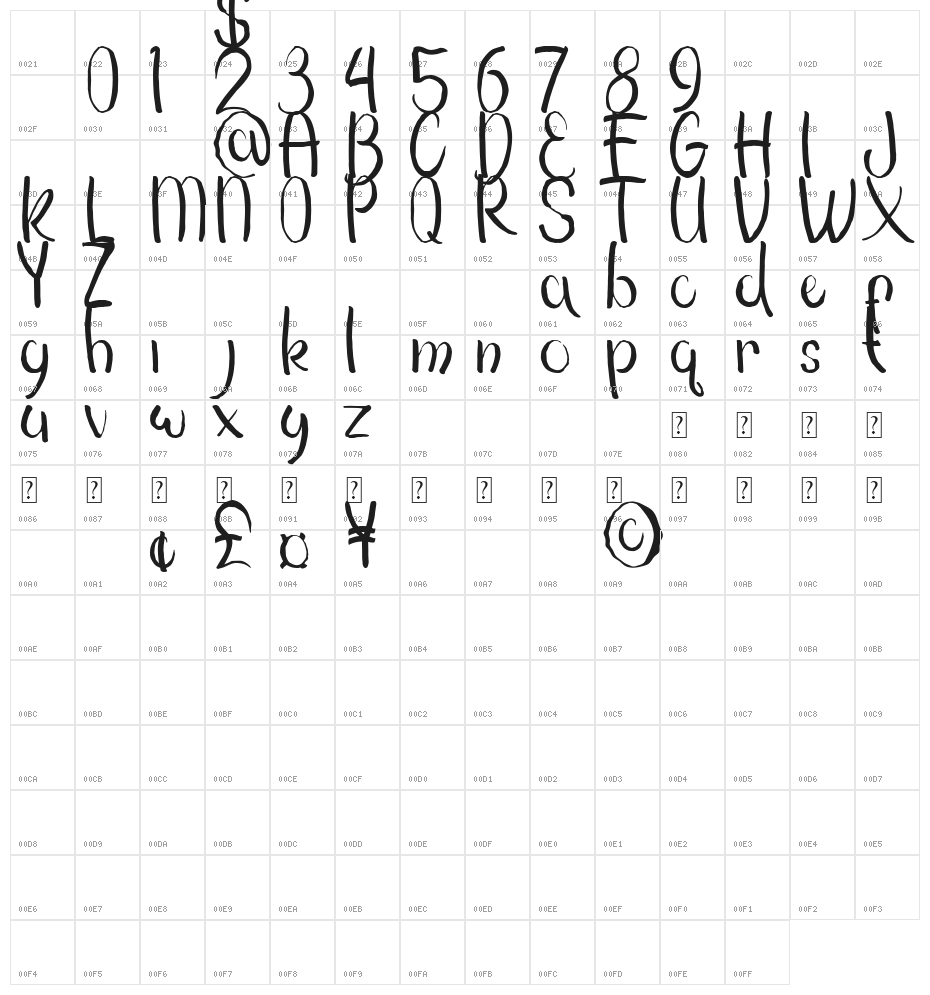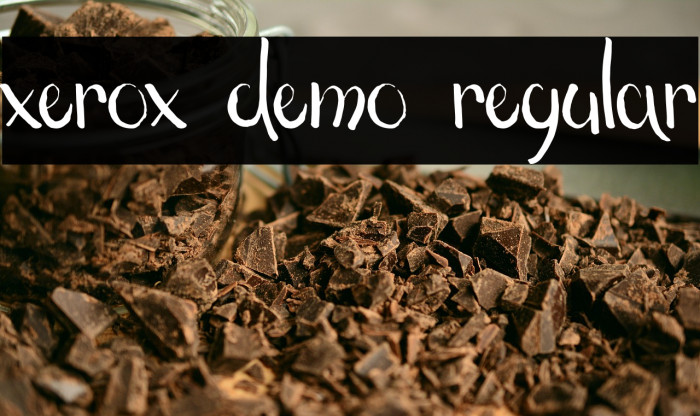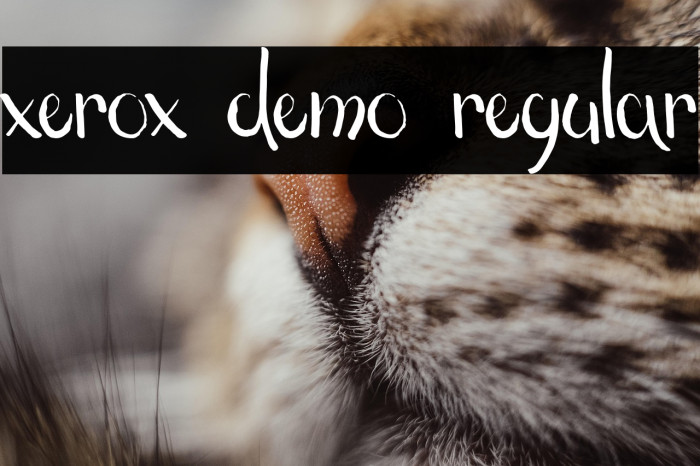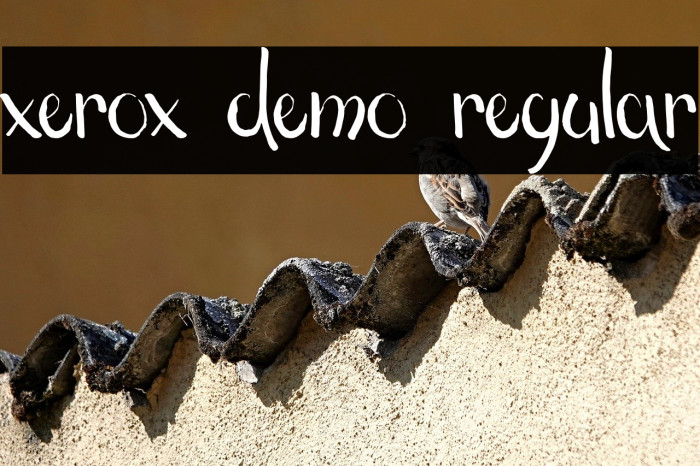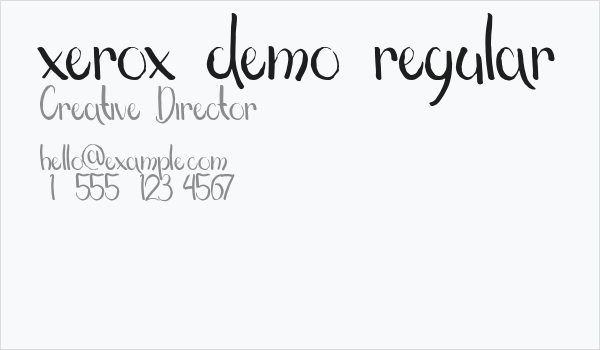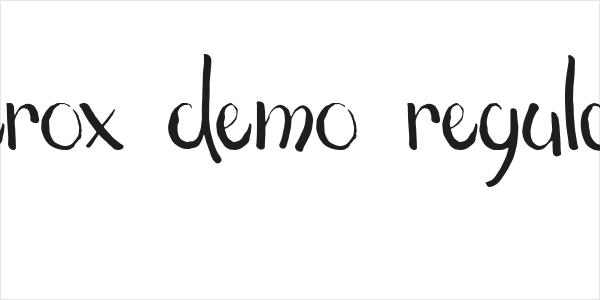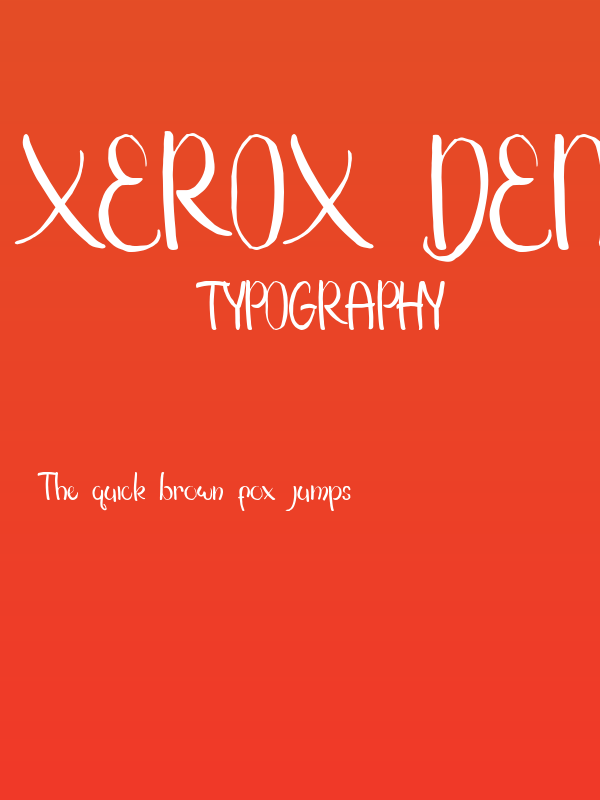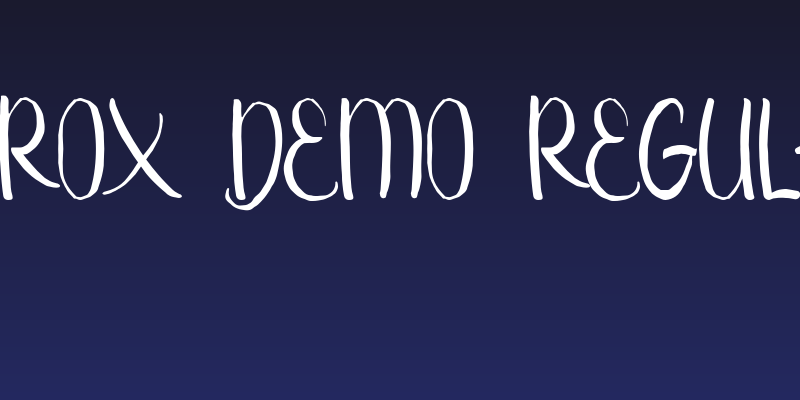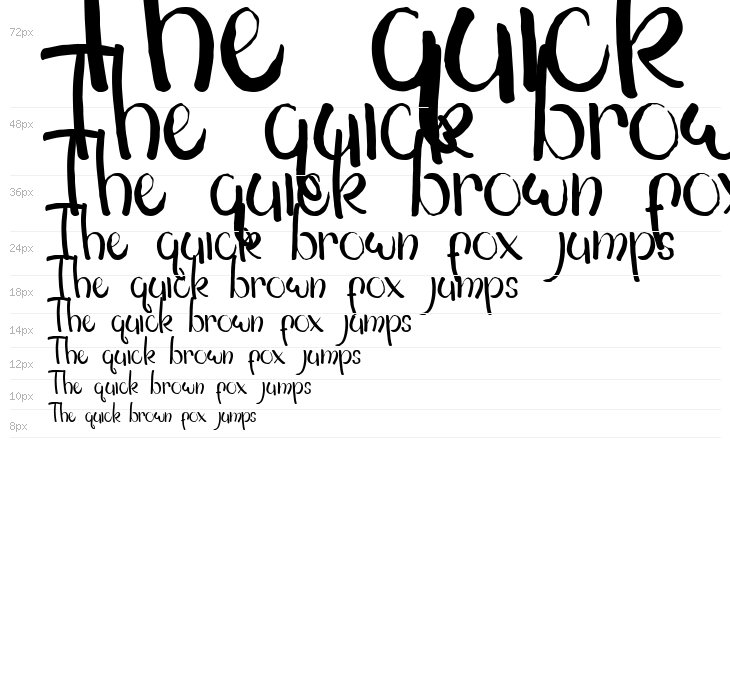
xerox demo regular Font
xerox demo regular Description
This font features a playful and artistic handwritten style, characterized by its fluid and dynamic strokes. The letters exhibit a natural, flowing movement with a slight slant, giving it an informal and approachable feel. The uppercase letters are tall and narrow, while the lowercase letters maintain a consistent height, enhancing readability. The numbers and special characters follow the same stylistic approach, ensuring a cohesive look across all elements. The strokes vary in thickness, adding a lively and energetic touch to the overall design.
| Proposed Projects | Ideal for creative projects such as greeting cards, invitations, posters, and branding materials that require a personal and artistic touch. |